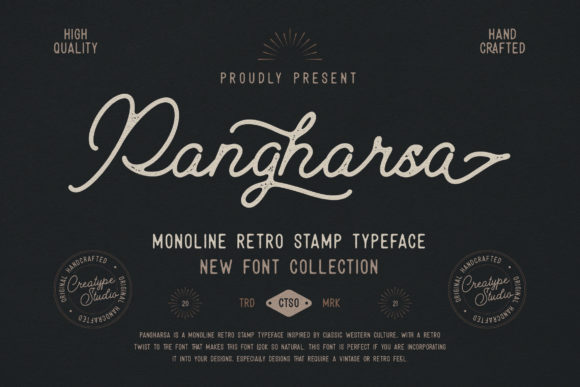
Journey into the realm of elegance and grace with Pangharsa, a captivating script font that will transform your digital presence. A symphony of smooth curves and delicate lines, Pangharsa is a visual masterpiece that evokes a sense of nostalgia and sophistication. Step into a world where your words dance with undeniable charm, leaving an unforgettable impression on all who encounter them.
Crafted with meticulous attention to detail, Pangharsa's vintage-inspired design exudes timeless beauty. Its carefully balanced strokes and graceful flourishes add a touch of artistry to every letter, making it the perfect choice for fashion branding, editorial designs, and projects that yearn for a touch of elegance.
With Pangharsa, your Instagram bio will radiate an aura of sophistication, drawing followers in like moths to a flame. Its enchanting glyphs and ligatures, accessible with ease through PUA encoding, allow you to unleash your creativity and craft bios that captivate and inspire.
Pangharsa is more than just a font; it's an expression of your individuality, a reflection of your unique style. With its effortless charm and versatility, Pangharsa will elevate your digital presence to new heights, captivating audiences and leaving them longing for more. Embrace the beauty of Pangharsa and watch your words transform into works of art.